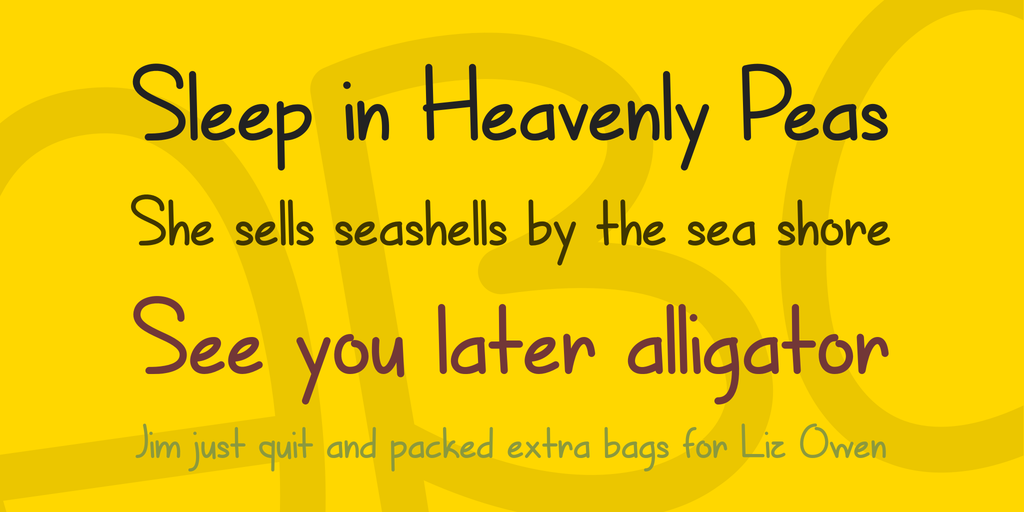
Presenting Sunny Spring Day Font! An extraordinary clean typeface that comes with 31 amazing styles. It has contained a number of amazing styles that can use for almost every type of design.
A majority of the creators are utilizing this sans serif typeface that is similar to gas rock for their ongoing uses because it’s perfect for titling and headline purposes.